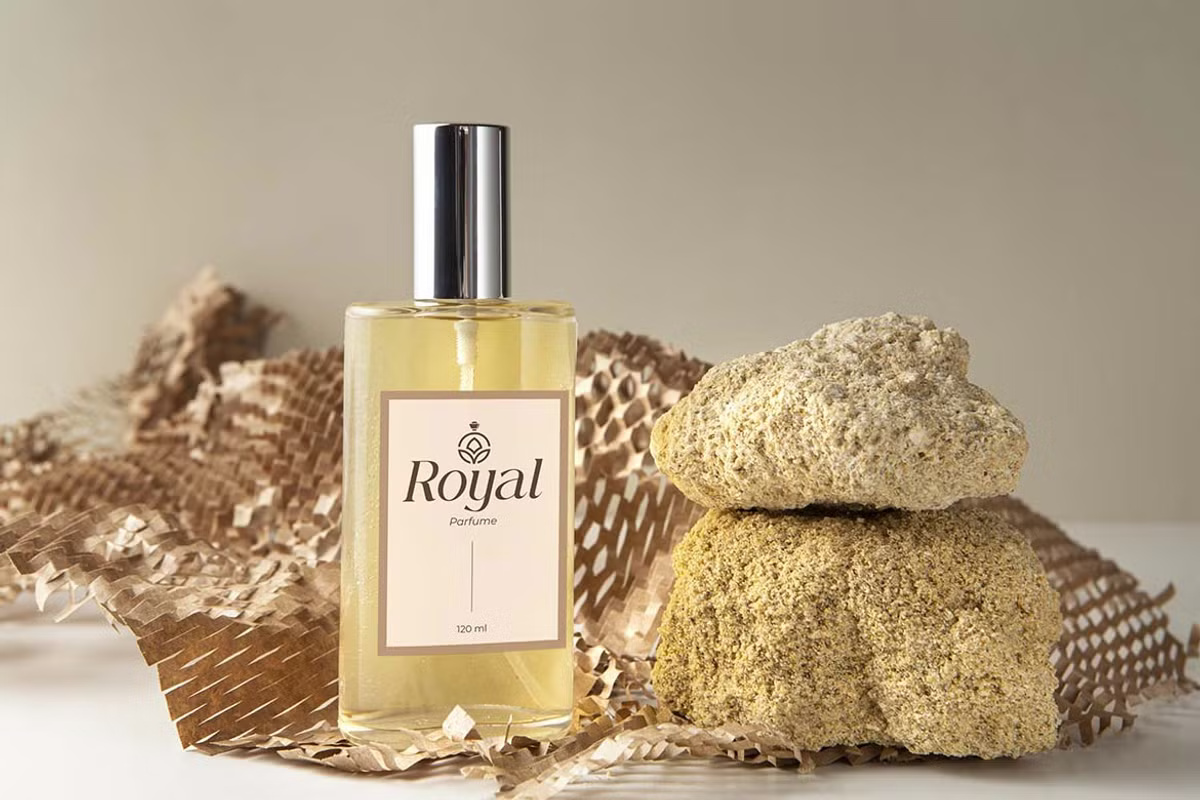
Royale Blackstone Font
Royale Blackstone is a modern retro serif typeface with a refined, high-fashion aesthetic. Its elegant yet bold design makes it a versatile choice for a wide range of projects, including stationery, logos, wedding invitations, typography quotes, magazine and book covers, website headers, branding, and more.